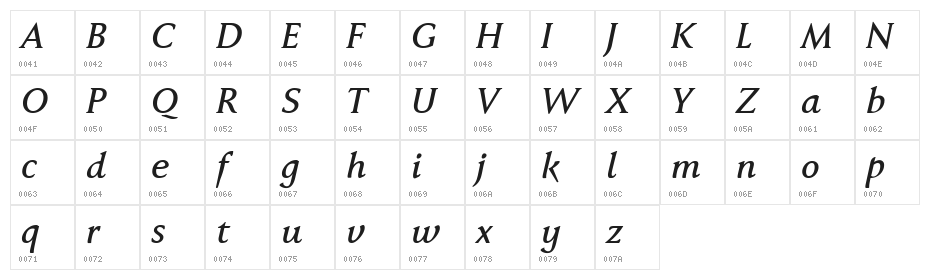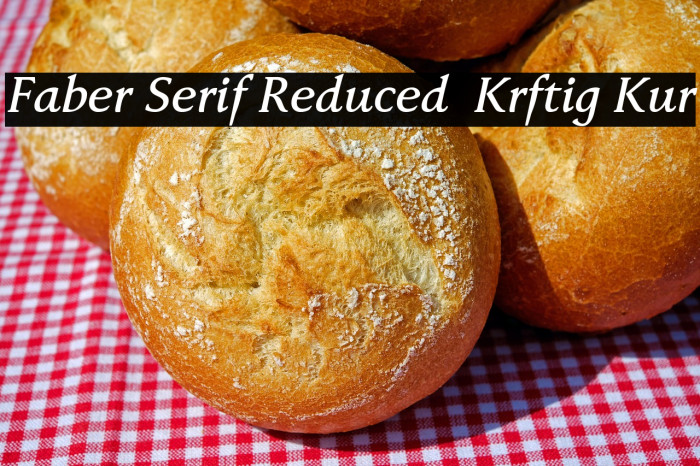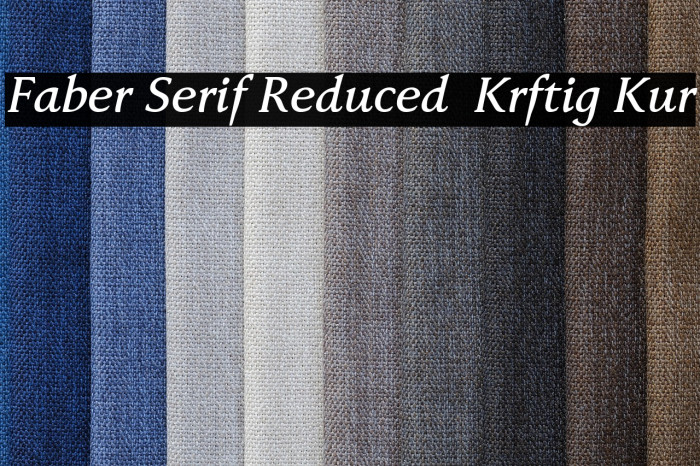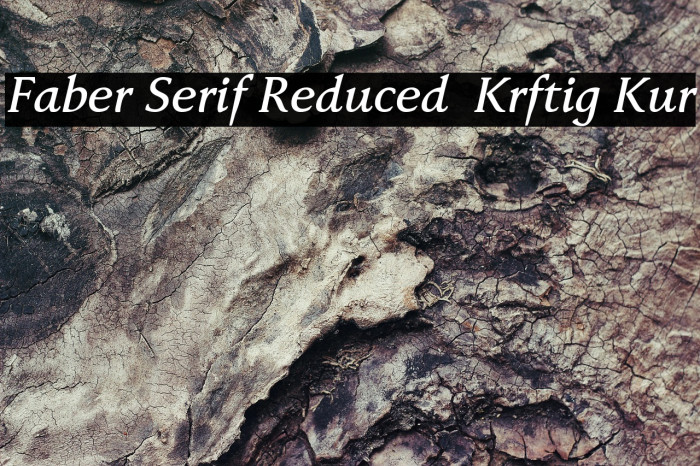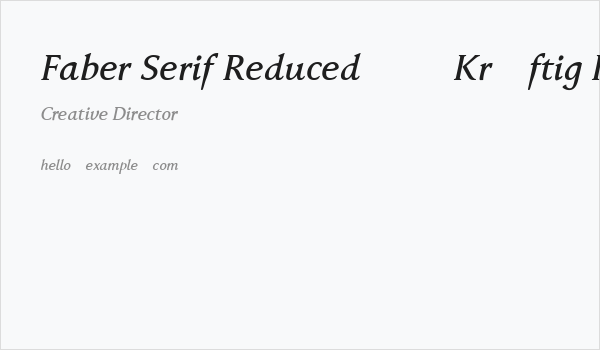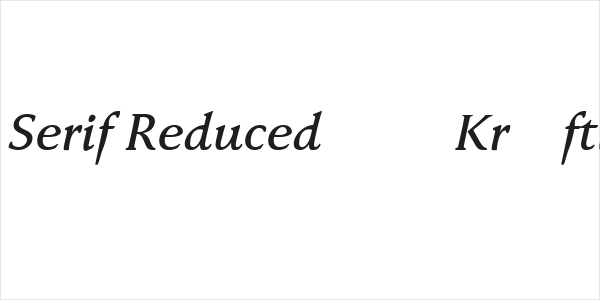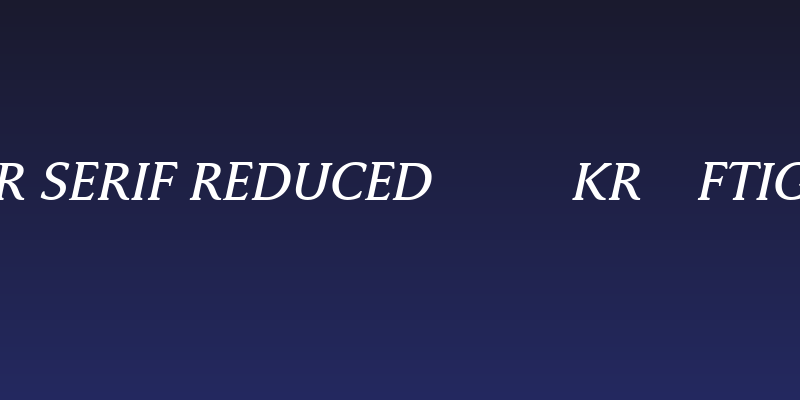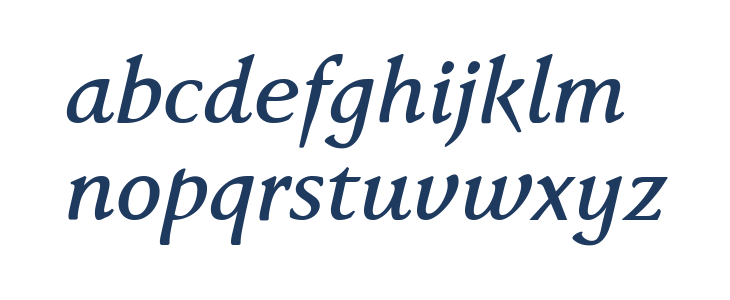
Faber Serif Reduced 66 Kräftig Kur Font
Faber Serif Reduced 66 Kräftig Kur Description
This font exhibits a classic serif style with a strong emphasis on elegance and readability. The characters are slightly condensed, giving it a refined and sophisticated appearance. The serifs are pronounced, adding a traditional touch, while the overall design maintains a modern sensibility. The italicized form enhances its graceful and fluid nature, making it suitable for formal and professional contexts. The contrast between thick and thin strokes is moderate, providing a balanced and harmonious look. This font is versatile, ideal for both print and digital media, where a touch of class is desired.
| Proposed Projects | Ideal for editorial design, book covers, formal invitations, and branding materials. |